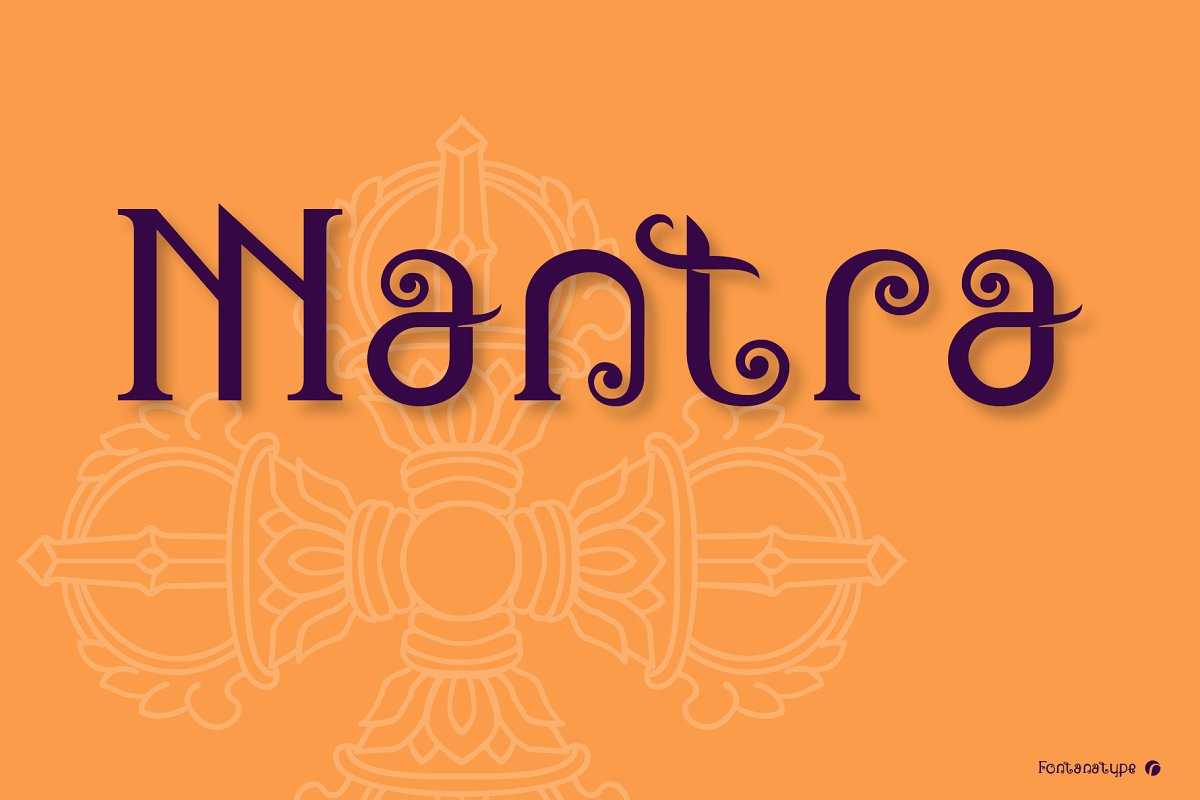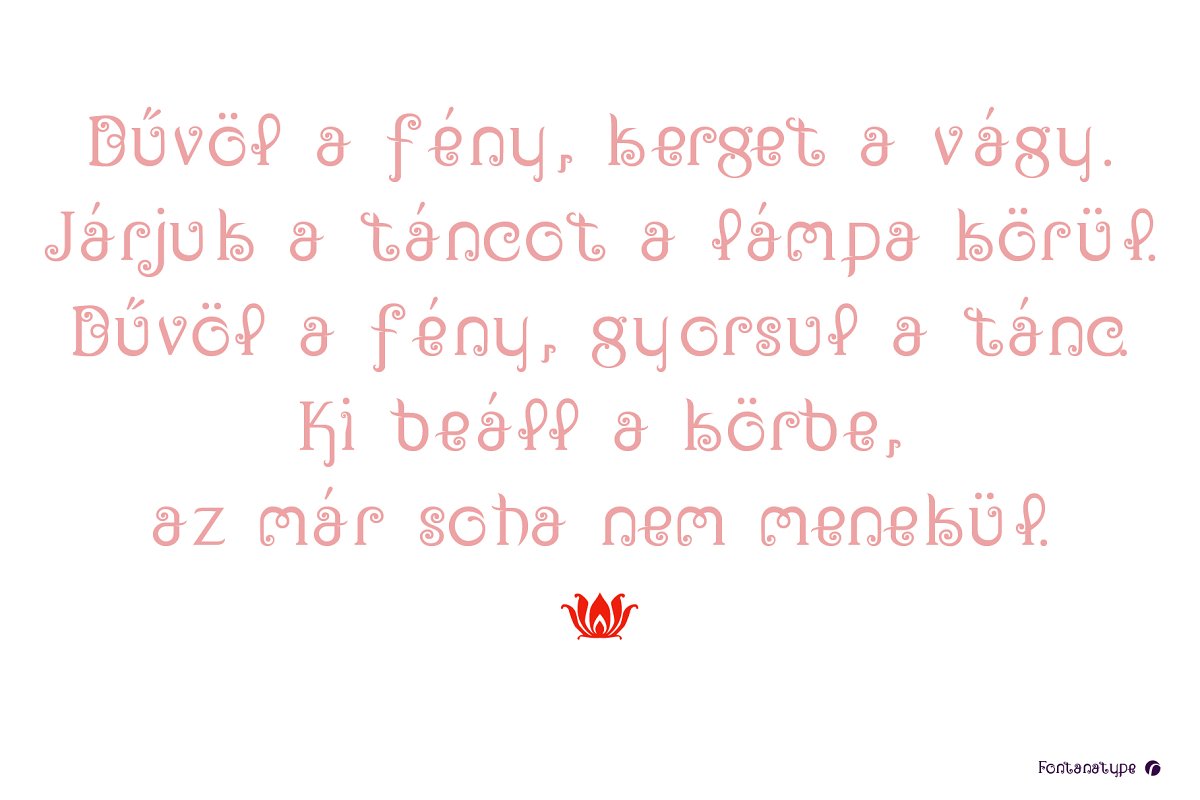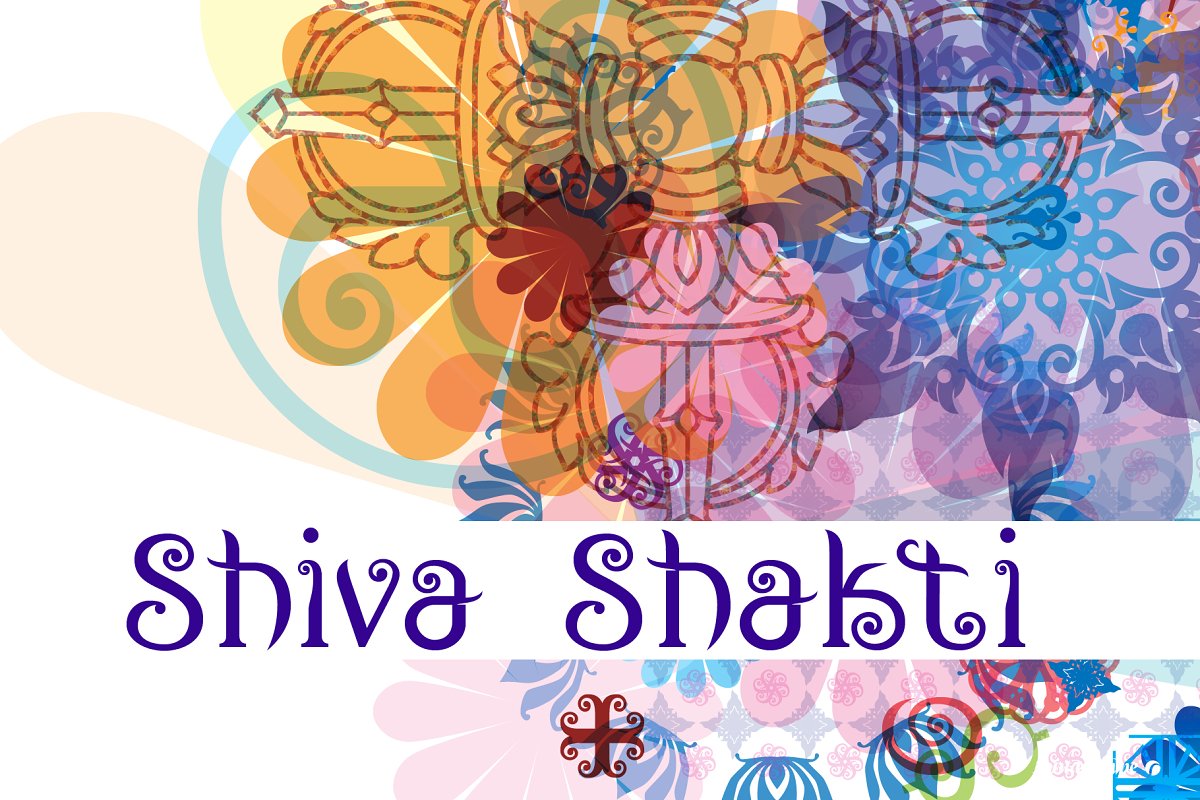
About the Mantra
I have been experimenting with transforming letters, characters, hieroglyphs into Latin characters for many years now, In doing so, I always strive to create a totally new Latin alphabet, while retaining the visual effect of the original characters, One of the results of a series of such attempts is the Mantra type, I was inspired to start developing Mantra by the lines on a box of Indian scent sticks
Another source of inspiration and motivation was the fact that I began doing yoga and was initiated to Eastern philosophies, At the same time, in the world of Hungarian motifs, there are also definite traces of some kind of Eastern spirit, The ancient Hungarian alphabet, the Hungarian Runes was replaced by the Latin alphabet more than a thousand years ago, but Hungarians have never forgotten their Eastern origins
Also, while coming close to the end of the process of developing the Mantra type, it was interesting to see how the characters came to show a slight touch of Baroque, I have designed a large number of ligatures, and, of course, graphic artists and designers using my types can develop further good ligatures from them, not to mention further Mandala formations
I consider that the Mantra type is most suitable to express freedom, colors, and music, And I like it also because it readily renders itself to further development…